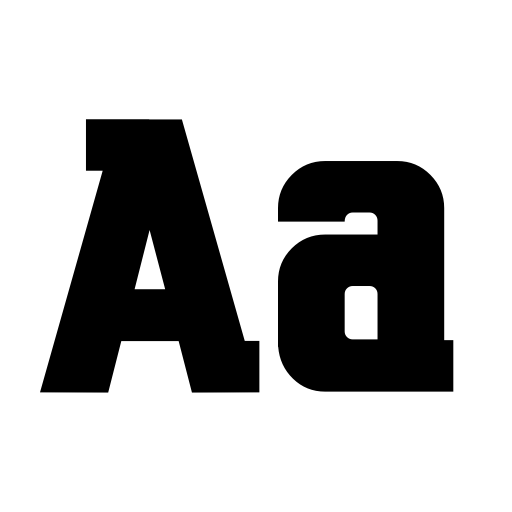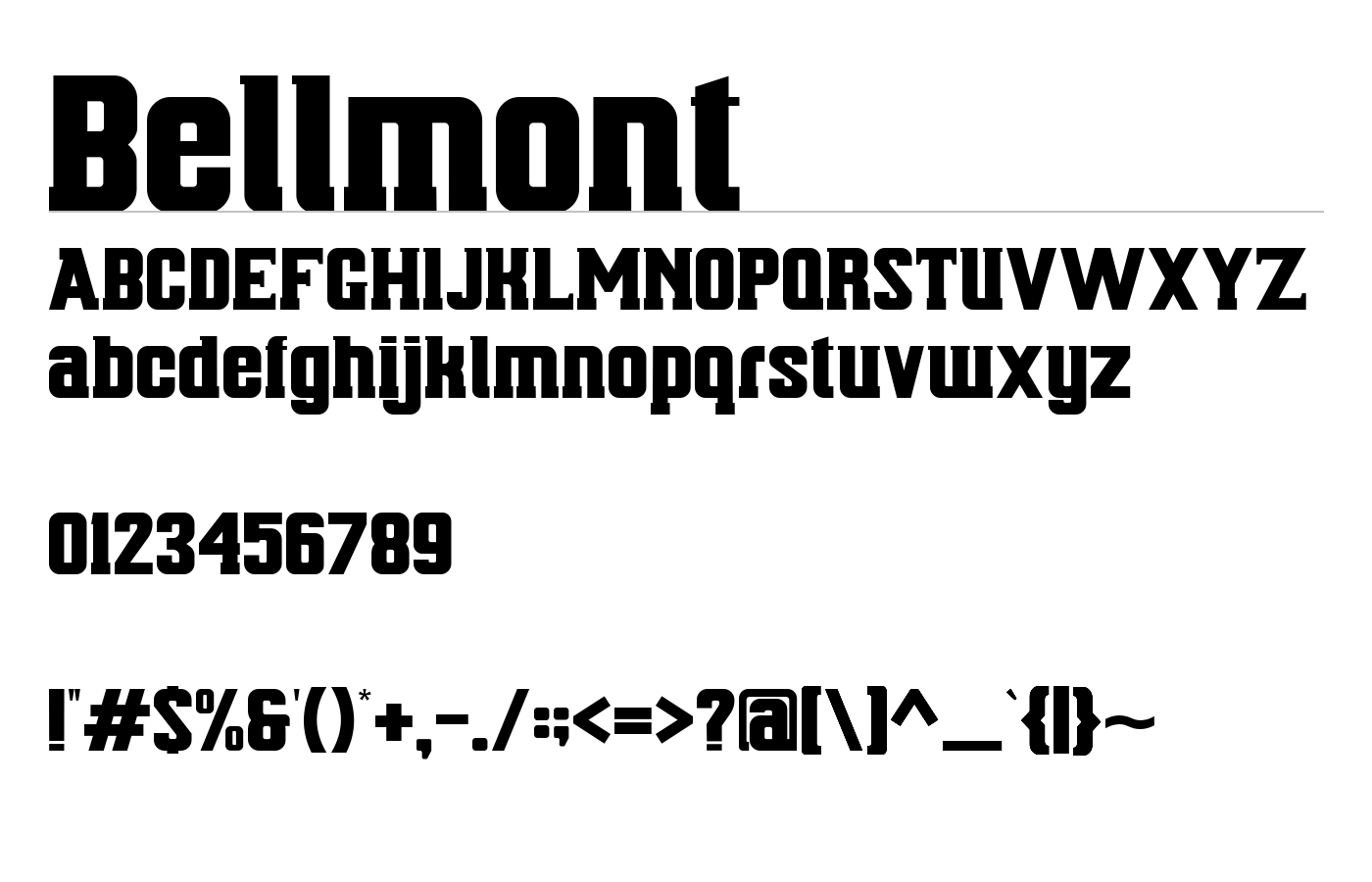
Bellmont is a bold slab serif font with a strong, sturdy presence characterized by thick strokes and blocky serifs. Its condensed width and high x-height give it a compact, impactful look that works well for headlines, logos, and branding where a confident, vintage-inspired style is desired. This font’s robust and industrial feel makes it ideal for projects needing a powerful, authoritative voice with a touch of classic charm.
Bellmont Font
About Bellmont Font
| Font family | Bellmont Font |
| Designer | Repi Hilmana |